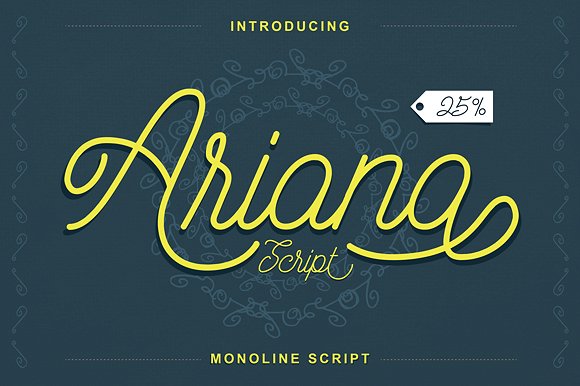
Ariana Script
Ariana Script Font
ArianaScript is a monoline script typeface. Ariana Script good for any project such as logo, wedding invitation, greeting card, poster, etc.
538 glyphs and alternate character contain with opentype features. Stylistic alternates, Ornament, Swash and more.You can access all those alternate characters by using OpenType savvy programs such as Adobe Illustrator and Adobe InDesign.